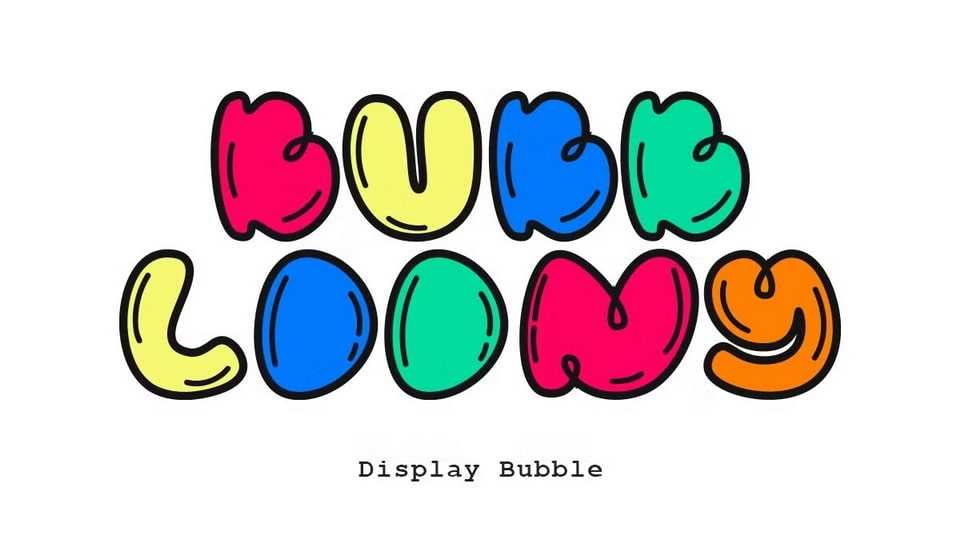
Download Bubbloony font, a fun and vibrant bubble typeface perfect for adding a playful touch to your creative projects and inspired by joy and imagination.